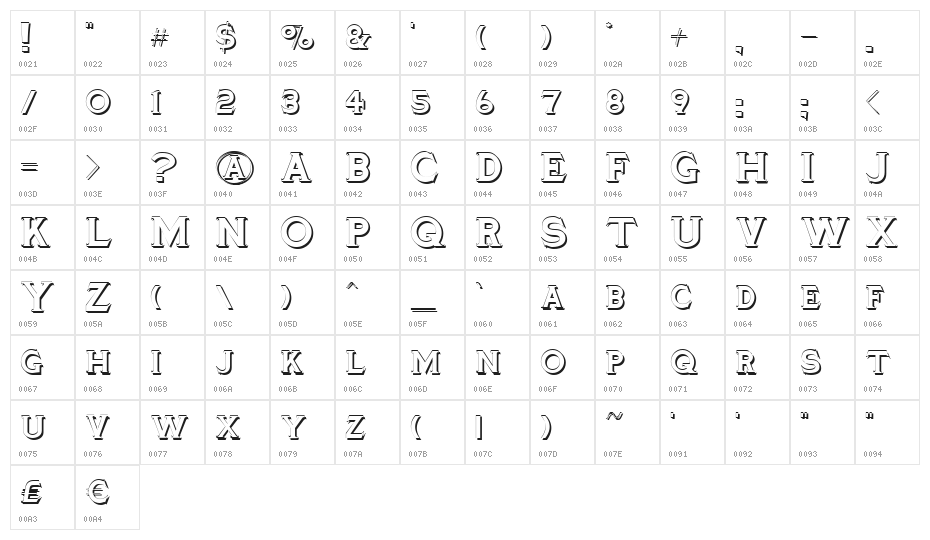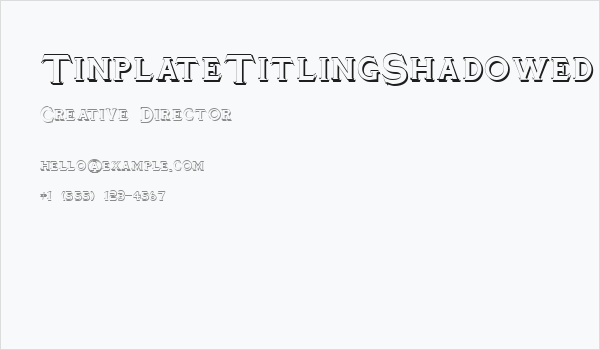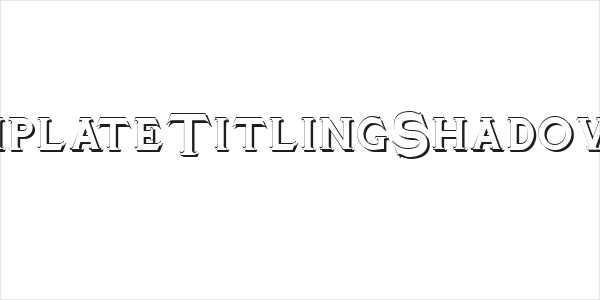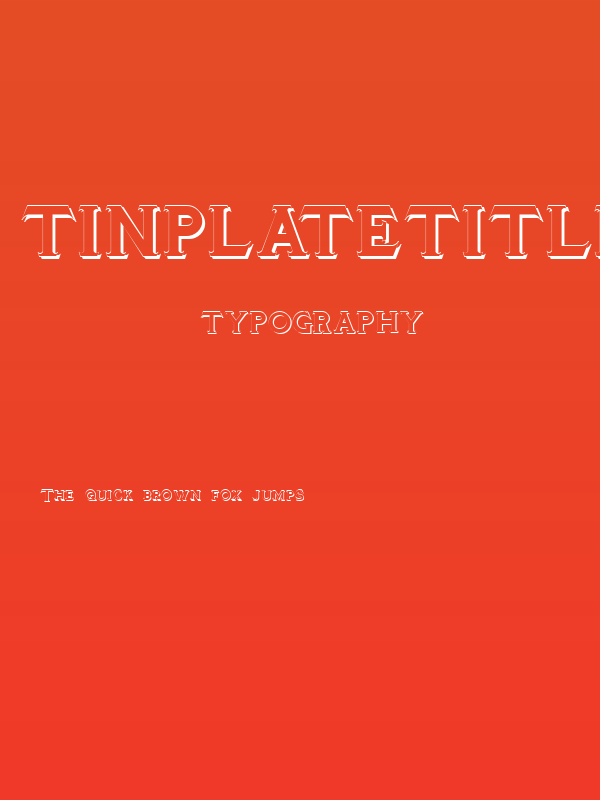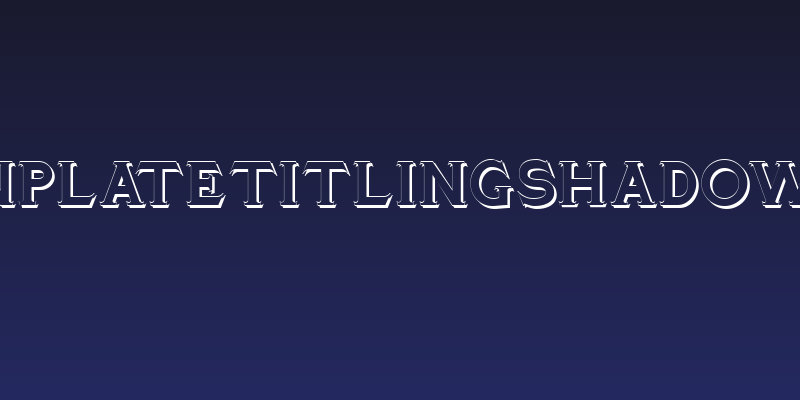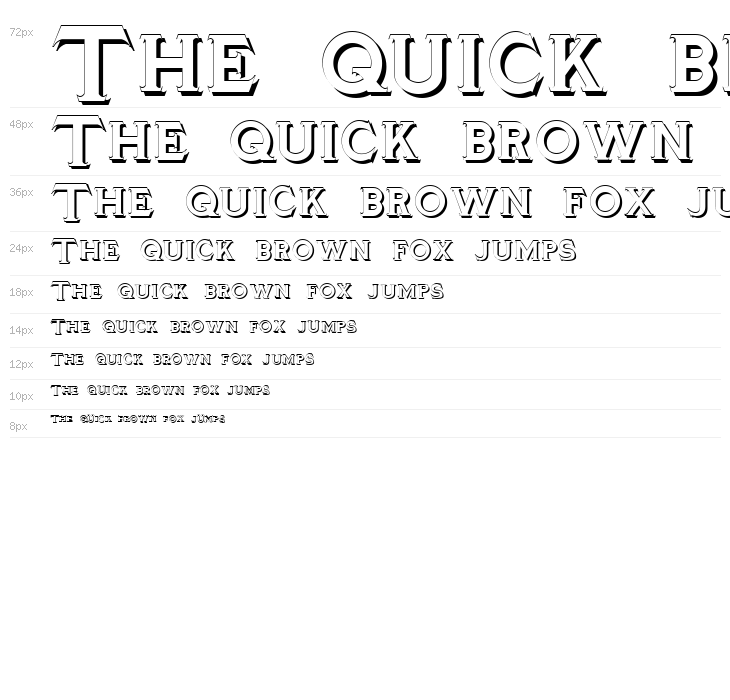
TinplateTitlingShadowed Font
TinplateTitlingShadowed Description
This font features a bold and striking design with a shadow effect that adds depth and dimension to each character. The uppercase and lowercase letters are crafted with a consistent width, creating a uniform appearance. The numerals and special characters maintain the same stylistic elements, ensuring a cohesive look across all text. The shadowing gives the font a three-dimensional feel, making it ideal for eye-catching designs. Its structured form and clear lines make it suitable for both digital and print media, where emphasis and readability are key.
| Proposed Projects | Ideal for posters, headlines, logos, and branding materials that require a strong visual impact. |